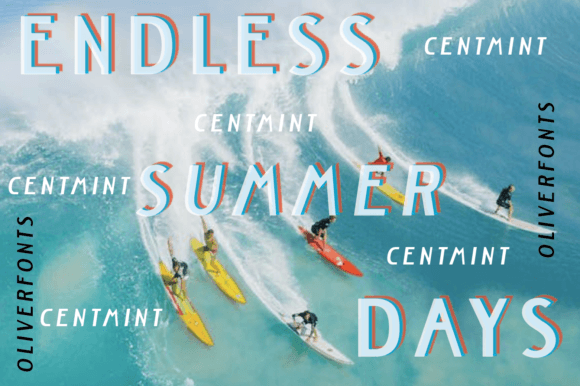
Introducing Centmint Font - The Epitome of Boldness and Vintage Charm for Your Headlines!
Take your headlines to new heights with Centmint Font, the ultimate font for making a lasting impression. This captivating sans-serif font exudes an aura of boldness and vintage charm, commanding attention with its confident strokes and striking presence.
Crafted by the renowned OLIVERFONTS, Centmint is more than just a font; it's an artistic masterpiece that transforms your words into visual masterpieces. Its all-caps design radiates a sense of strength and authority, while its fresh and bold appearance adds a touch of modern flair.
Whether you're creating eye-catching news headlines, captivating social media posts, or stunning marketing materials, Centmint Font is your secret weapon for capturing your audience's attention and leaving them in awe. Its versatility extends beyond headlines, making it an ideal choice for logos, posters, branding projects, and any design that demands a bold and impactful statement.
With Centmint Font, your headlines will never blend into the background. Instead, they'll leap off the page, captivating readers and leaving an indelible mark on their minds. Its vintage charm adds a touch of nostalgia and sophistication, evoking a sense of timeless elegance that resonates with audiences of all generations.
Don't settle for ordinary fonts that fail to leave a lasting impression. Embrace the power of Centmint Font and unlock a world of creative possibilities. Let your headlines shine, your designs sizzle, and your brand identity soar to new heights.
Centmint Font - Bold, Vintage, and Unforgettable!